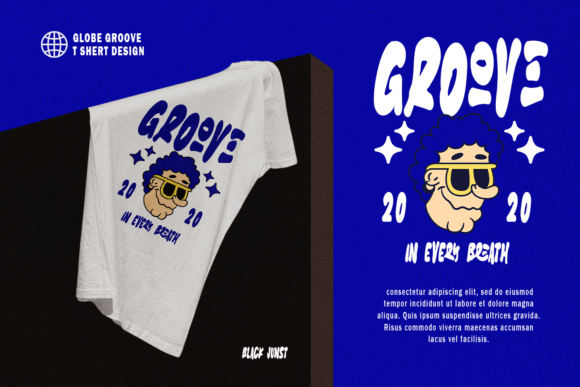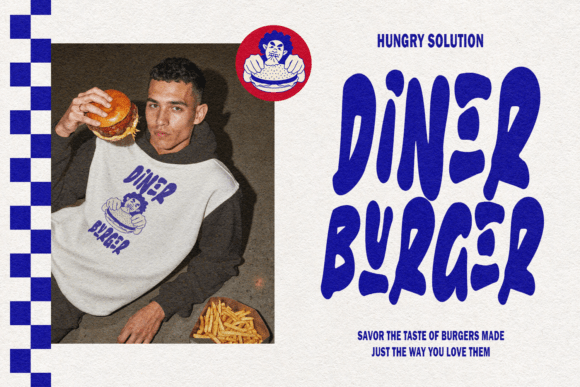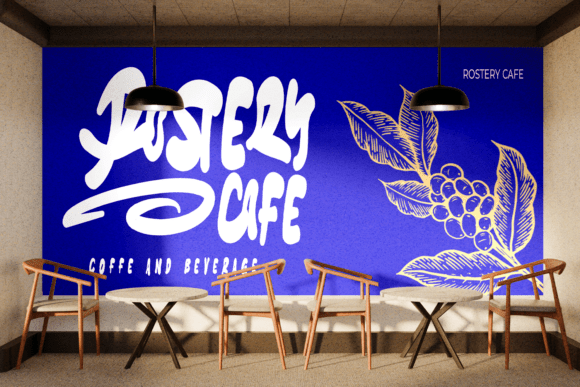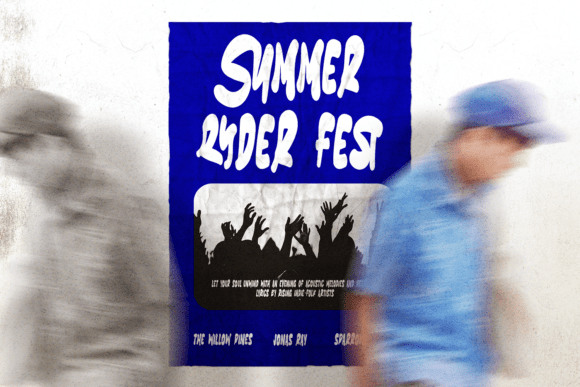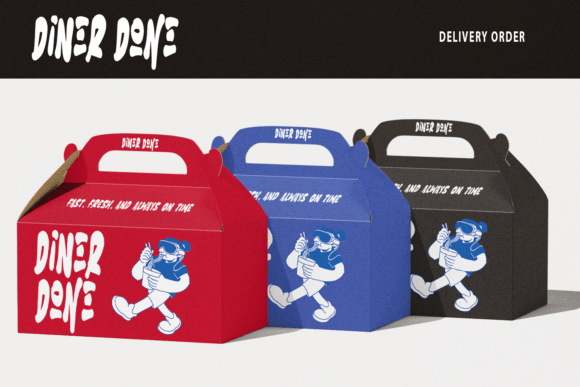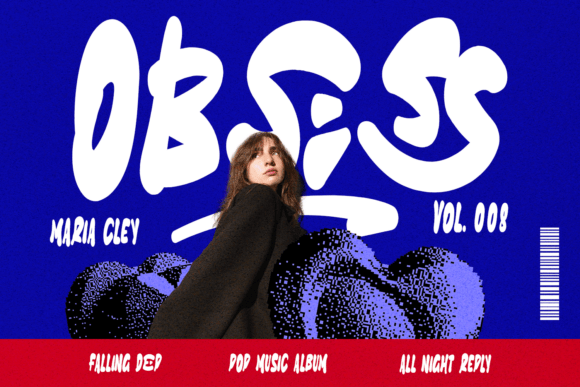
Discover the Power of Secy Break Font
As designers, we’ve all been there – staring at a blank canvas, searching for that perfect font to bring our creative vision to life. And then, it happens. A spark of inspiration, a dash of creativity, and suddenly, our project is infused with a bold, fresh energy. For many, that moment of magic is thanks to the Secy Break Font, a streetwear-inspired display font that’s about to revolutionize your design game.
With its unique, handcrafted feel and highly legible design, Secy Break Font is the perfect addition to any creative project. Whether you’re working on a fashion campaign, designing packaging, or creating social media content, this font is sure to give your project a confident voice that stands out from the crowd. And the best part? Secy Break Font is available for free download, making it an accessible, high-quality design resource for designers of all levels.
Key Features of Secy Break Font
- High-quality design resource perfect for creative projects, available for free download
- Unique, modern font with a transparent background, ideal for adding a touch of elegance to your design
- Includes a range of characters, including uppercase and lowercase letters, numbers, and punctuation marks
- Supports a wide range of languages, making it a versatile design resource for global projects
Honest Review: Secy Break Font
As a designer, I’m always on the lookout for high-quality design resources to elevate my creative projects. Recently, I had the chance to work with the Secy Break Font, and I’m excited to share my honest review.
- ✨ High-quality design: The Secy Break Font is well-crafted and visually appealing, making it a great addition to any design project.
- ⚠️ Limited font styles: While the font itself is great, the available styles are somewhat limited, which may not be ideal for designers who require a wider range of options.
- ⚠️ Not ideal for complex text: Due to the font’s unique design, it may not be the best choice for complex text or large blocks of text.
Overall, I’m impressed with the Secy Break Font and would definitely recommend it as a design resource for creative projects. While it has its limitations, its high-quality design and free download make it a valuable addition to any designer’s toolkit.
Tips for Getting the Most Out of Secy Break Font
Use the transparent background feature of Secy Break Font to create stunning designs with a clean and minimalist look. Experiment with different font sizes and styles to add visual interest to your design. Use the font in combination with other design elements to create a cohesive and engaging visual identity.
Secy Break Font is ideal for use in various creative projects, including logos, brochures, business cards, and social media graphics. Its unique design and high-quality features make it a popular choice among designers and artists.